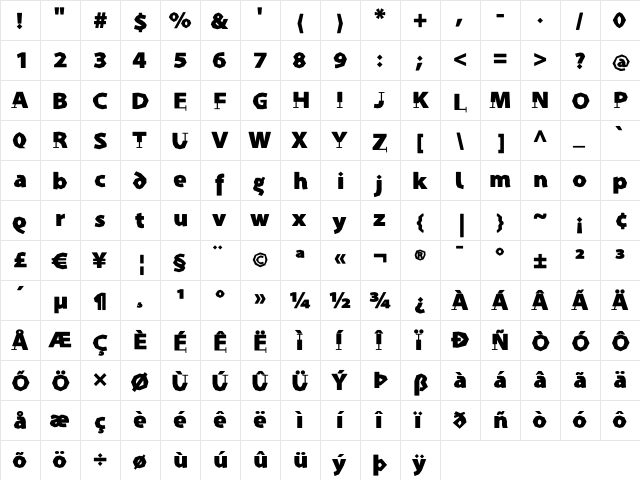
Prothesis-Caribiqu Regular
Design Context for Prothesis-Caribiqu Typeface
Prothesis-Caribiqu is a composed and adaptable typeface that performs quietly and consistently across a wide range of design contexts.
Pro Tip: Pair Prothesis-Caribiqu with a font of contrasting weight or personality to build a more expressive typographic hierarchy.